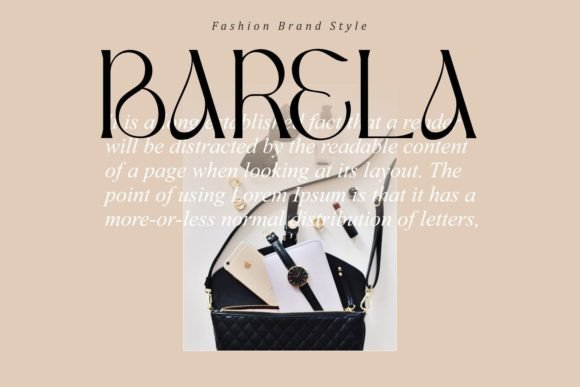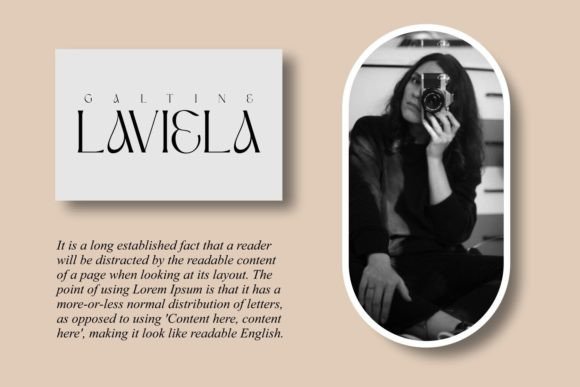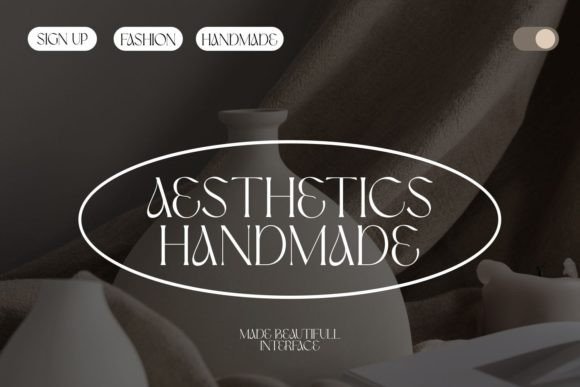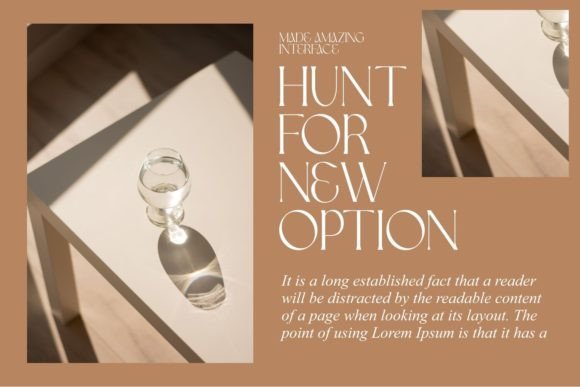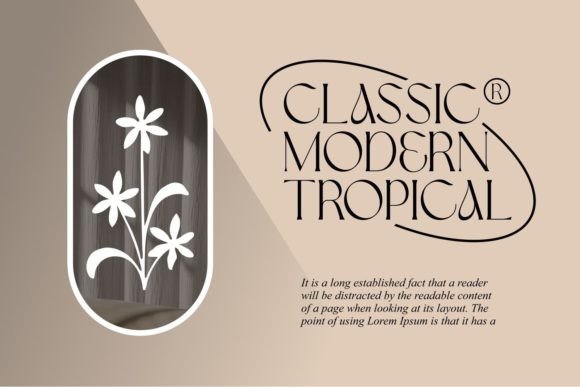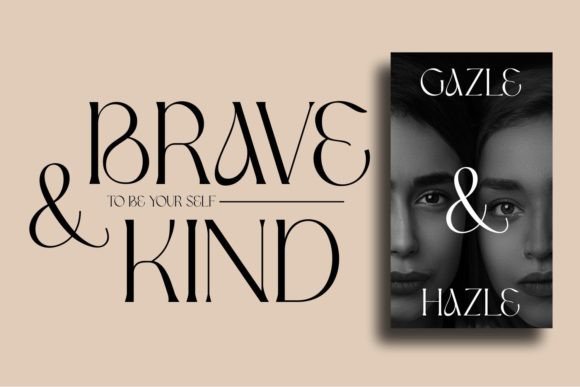
Introduction to Serifa Arique Font
As designers, we’ve all been there – staring at a blank canvas, waiting for inspiration to strike. For me, it was a late-night Pinterest scroll that led me to discover the perfect font for my next creative project: the stunning Serifa Arique Font. Its elegant and bold serif style instantly caught my eye, and I knew I had to learn more.
The Serifa Arique Font is more than just a pretty face – it’s a valuable design resource that can elevate any project from basic to breathtaking. With its high-quality design and transparent background, it’s the perfect addition to any design portfolio. And the best part? You can download it for free, making it an accessible design resource for creatives of all levels.
Whether you’re a seasoned pro or just starting out, the Serifa Arique Font is a must-have for any design enthusiast. In this article, we’ll dive deeper into the world of this incredible font, exploring its uses, benefits, and why it’s a game-changer for designers everywhere.
Key Features of Serifa Arique Font
- High-quality design: Serifa Arique Font offers a unique blend of traditional and modern typography, making it an excellent choice for creative projects.
- Transparent background: This font features a transparent background, allowing for seamless integration with various design elements and backgrounds.
- High-resolution design: With a resolution of up to 300 DPI, the Serifa Arique Font is suitable for high-quality printing and digital designs.
- Unique characteristics: The font’s distinctive serifs and elegant lines make it an excellent choice for creating visually appealing and professional designs.
- Perfect for creative projects: The Serifa Arique Font is ideal for designers working on creative projects, including branding, advertising, and editorial designs.
Honest Review: Serifa Arique Font
I recently stumbled upon the Serifa Arique Font, and I’m excited to share my thoughts on this design resource. As a designer, I’m always on the lookout for high-quality fonts that can elevate my creative projects.
One of the things that works well with the Serifa Arique Font is its versatility. It comes with a transparent background, which makes it perfect for designers who want to create seamless and professional-looking designs. The font also has a clean and modern aesthetic, making it suitable for a wide range of creative projects.
Here are some of the key features that I like about the Serifa Arique Font:
- Transparent background for seamless design integration
However, there are some limitations to the Serifa Arique Font that I should mention:
- ⚠️ Limited font styles available (only a few weights and styles)
- ⚠️ Not suitable for complex or large-scale designs due to its simplicity
Overall, I’m impressed with the Serifa Arique Font, and I think it’s a great addition to any designer’s toolkit. While it has some limitations, its high-quality design and transparent background make it a valuable resource for creative projects.
The Serifa Arique Font is suitable for various creative projects, such as designing a logo, creating a brochure, or making a presentation. Its high quality and unique style make it an excellent choice for designers looking to add a touch of elegance to their work.
Is the Serifa Arique Font a high-quality design resource?
Yes, the Serifa Arique Font is a high-quality design resource that’s designed to provide clear and legible text, even at small font sizes. It’s an excellent choice for any design project that requires a clean and sophisticated look.